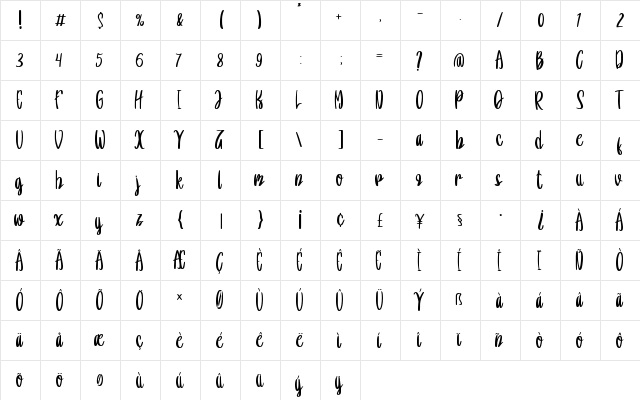
Beleriand Regular
Design Context for Beleriand Typeface
Beleriand is a composed and adaptable typeface that performs quietly and consistently across a wide range of design contexts.